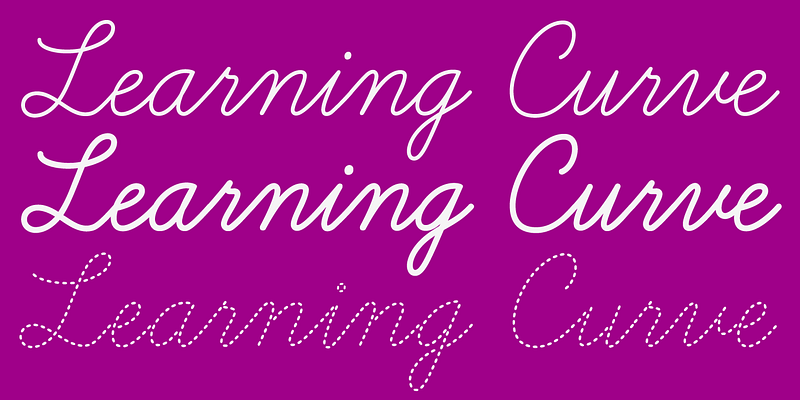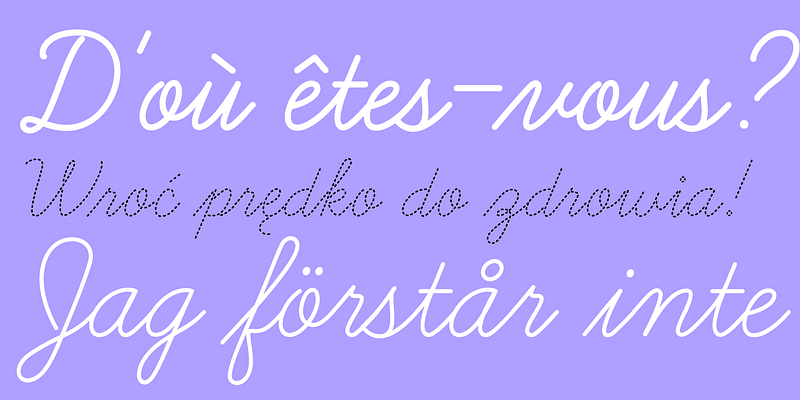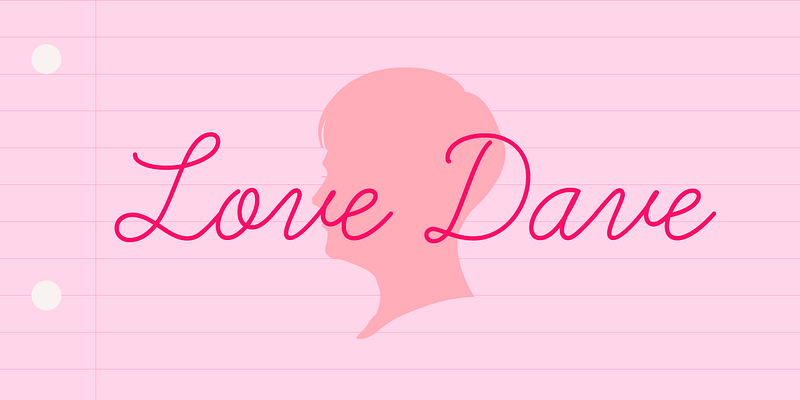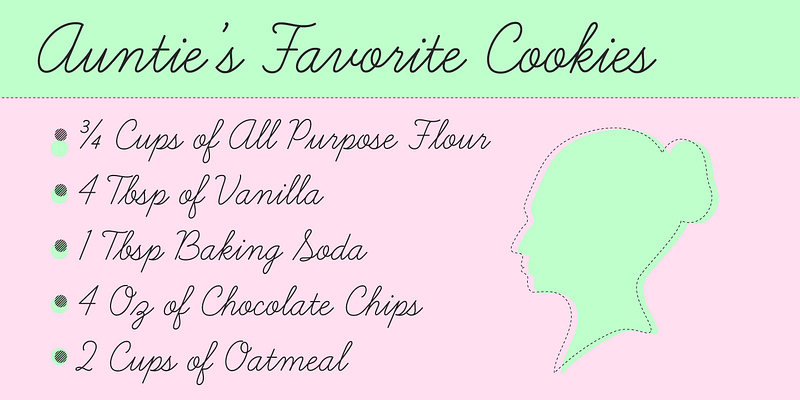
Learning Curve mimics traditional cursive handwriting, but with a modern style that I developed from my handwriting.
In the latest version, you will find a lot of new features. First, the Learning Curve family finally has a bold style! Language support was increased to include Central European. Some characters were redrawn to give them a little more finesse. The dashed version was completely redrawn to eliminate the overlapping dashes.